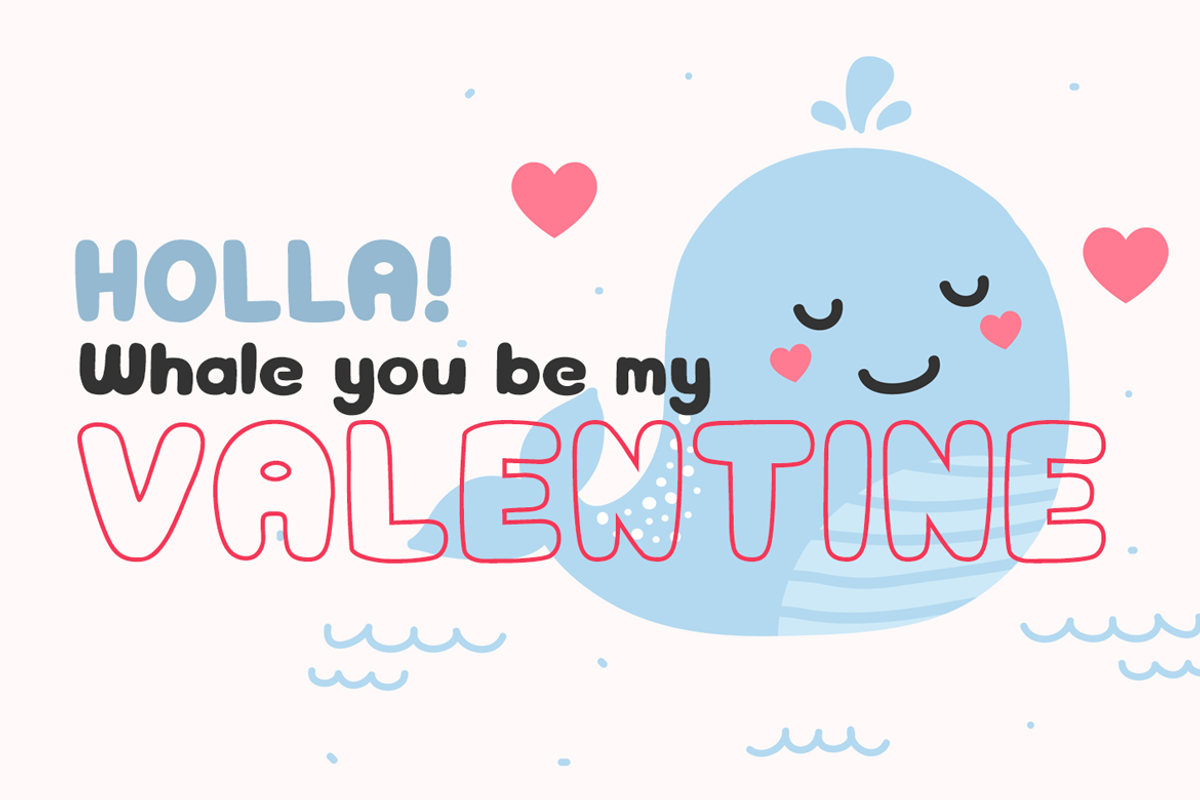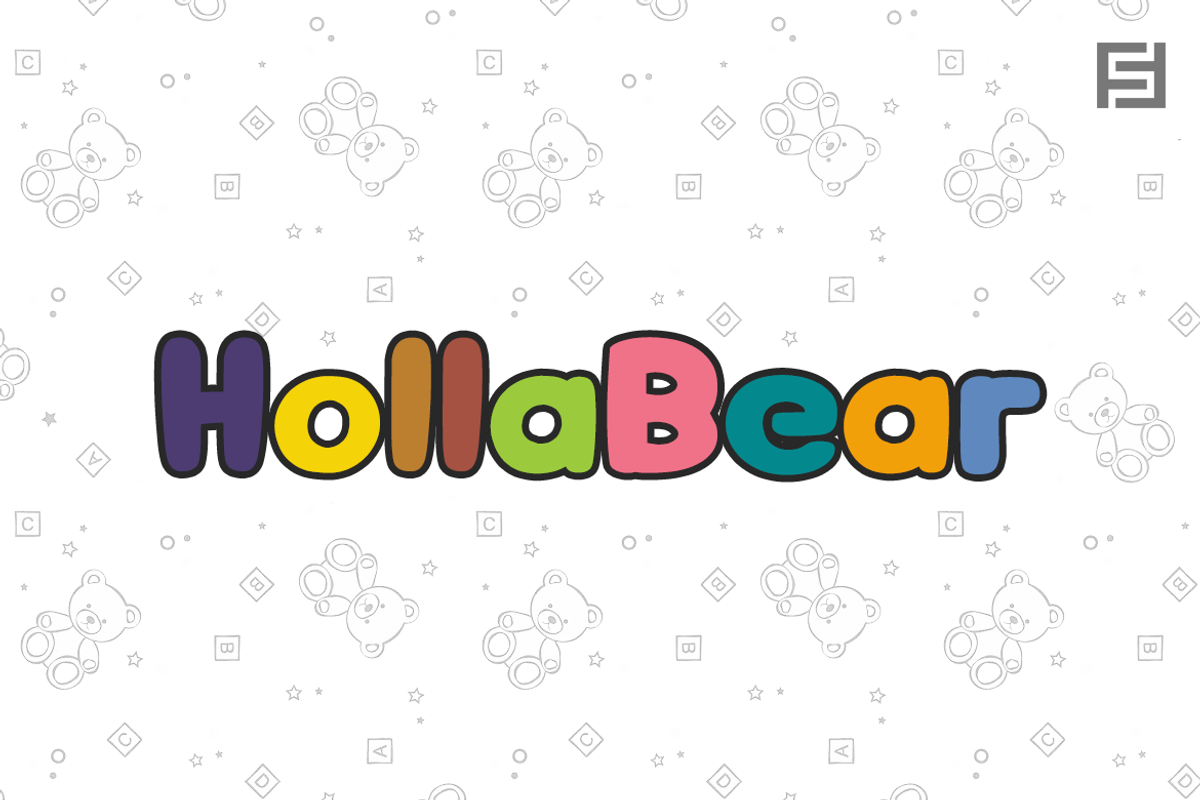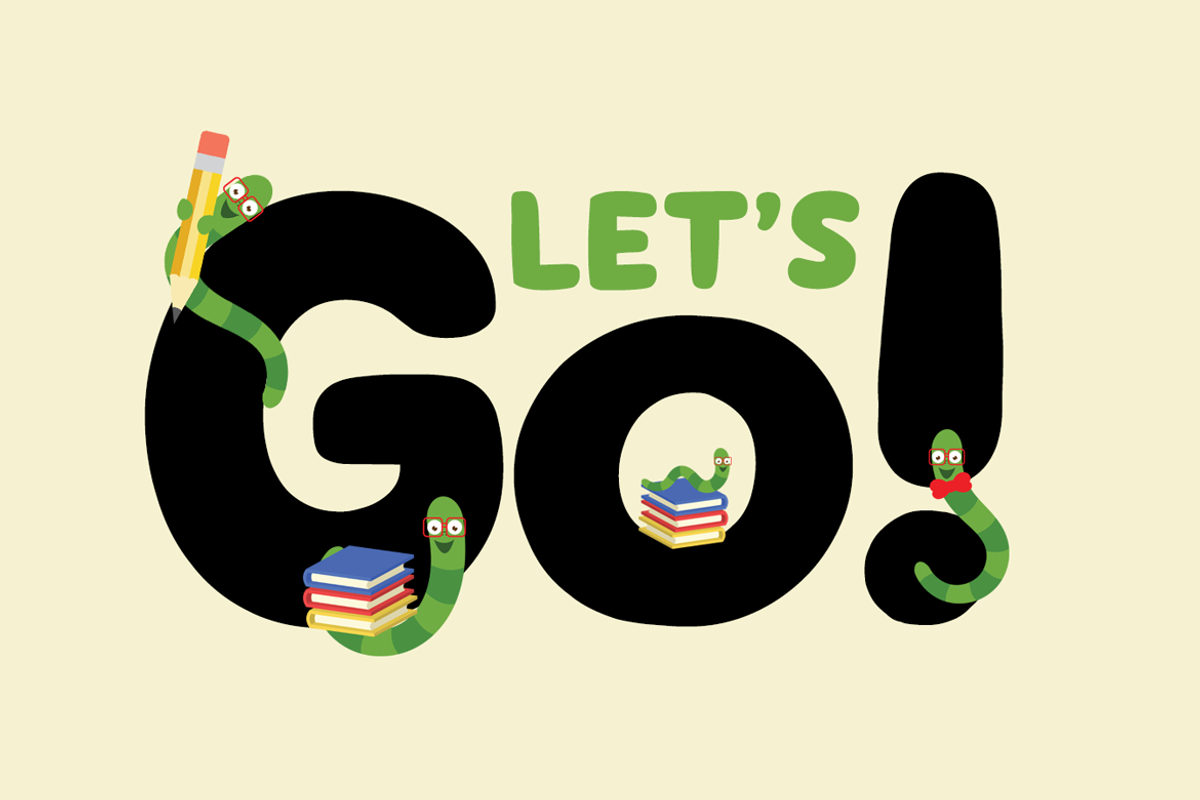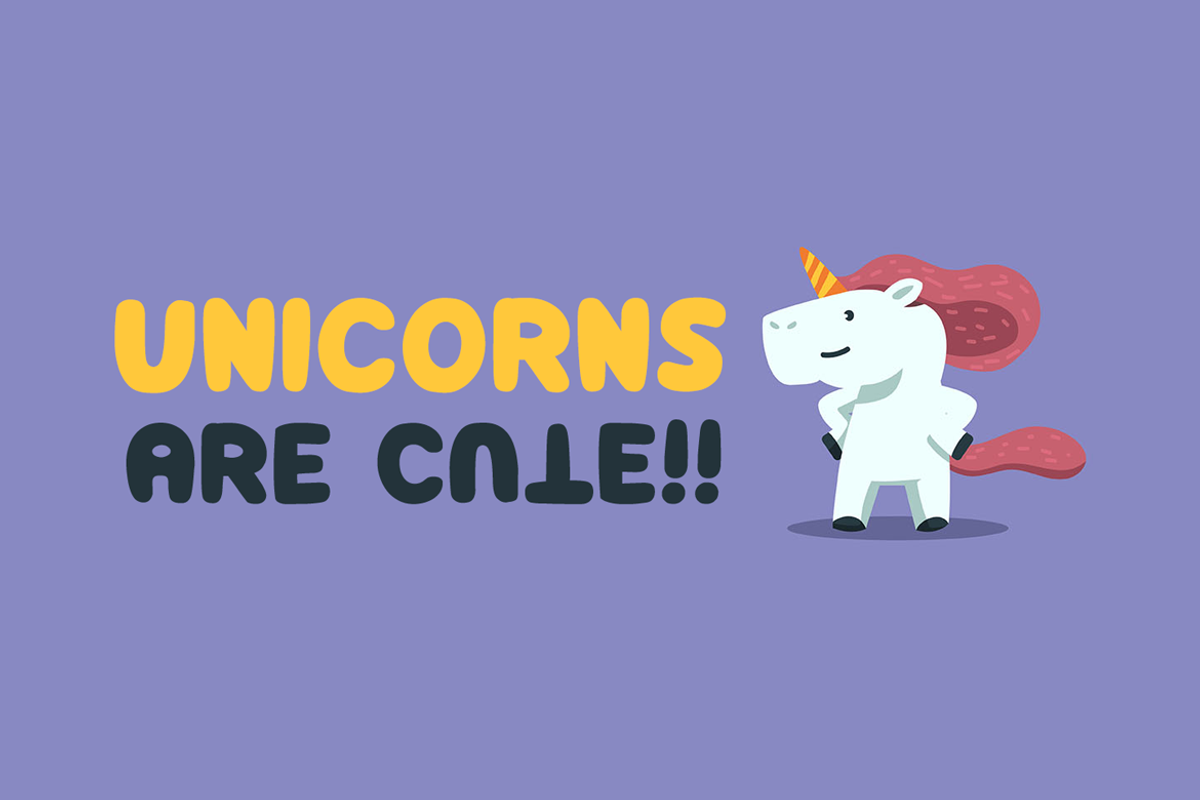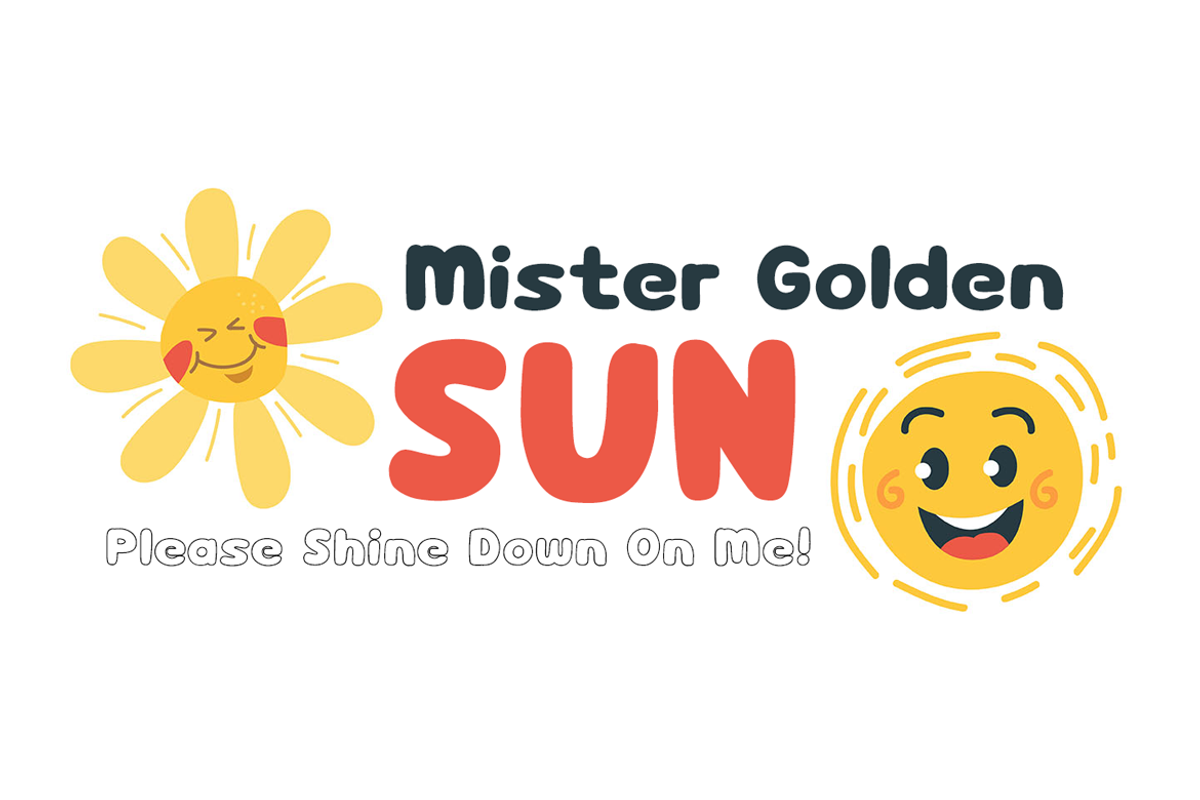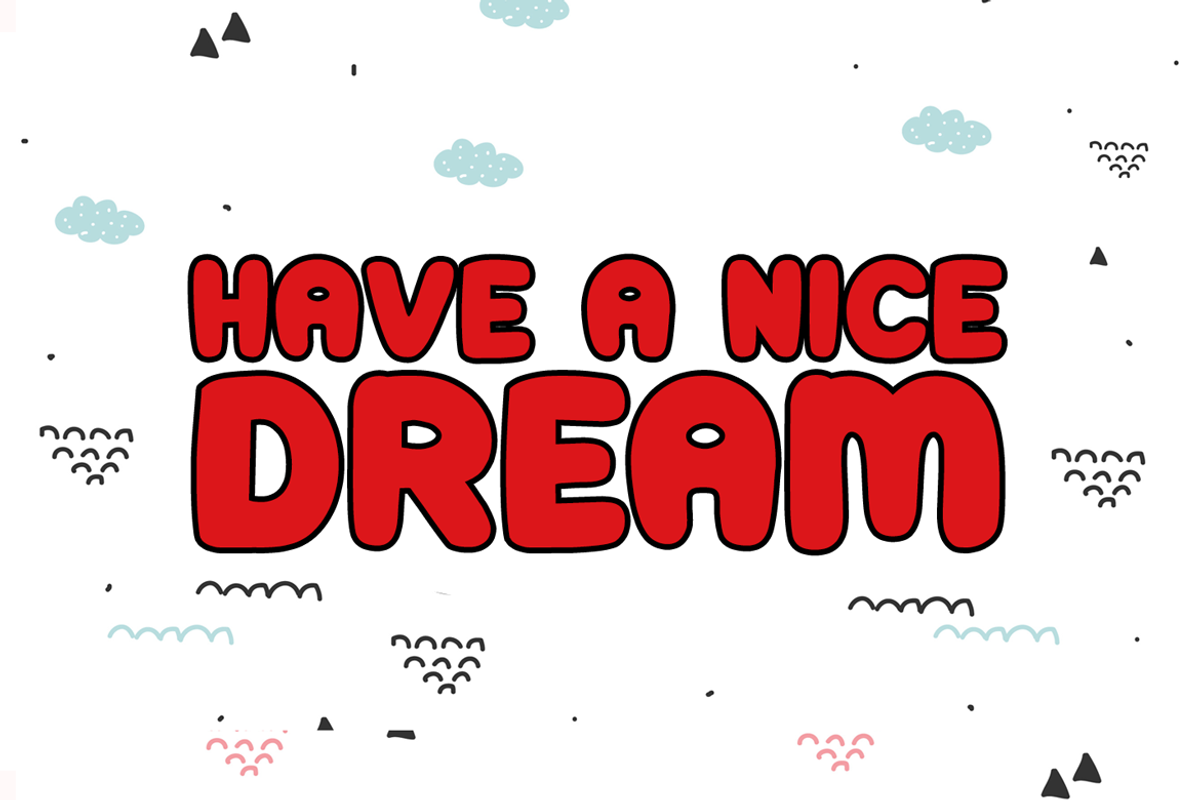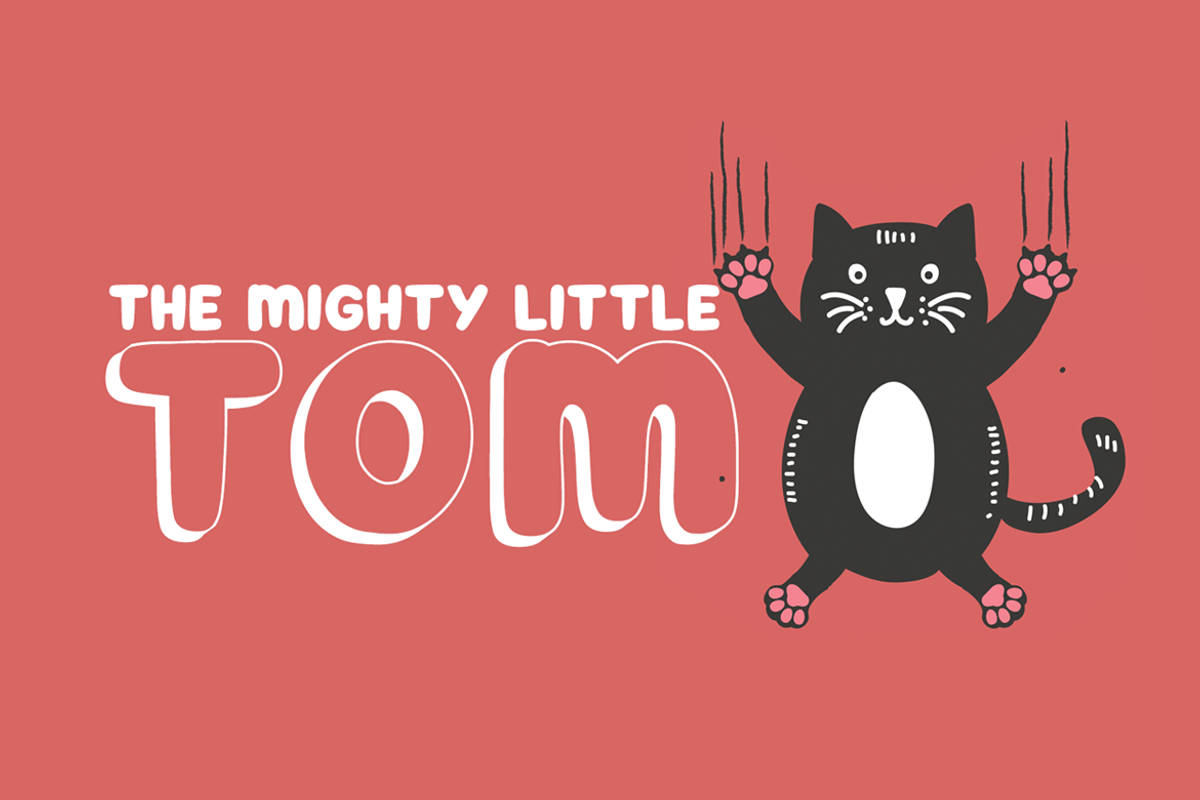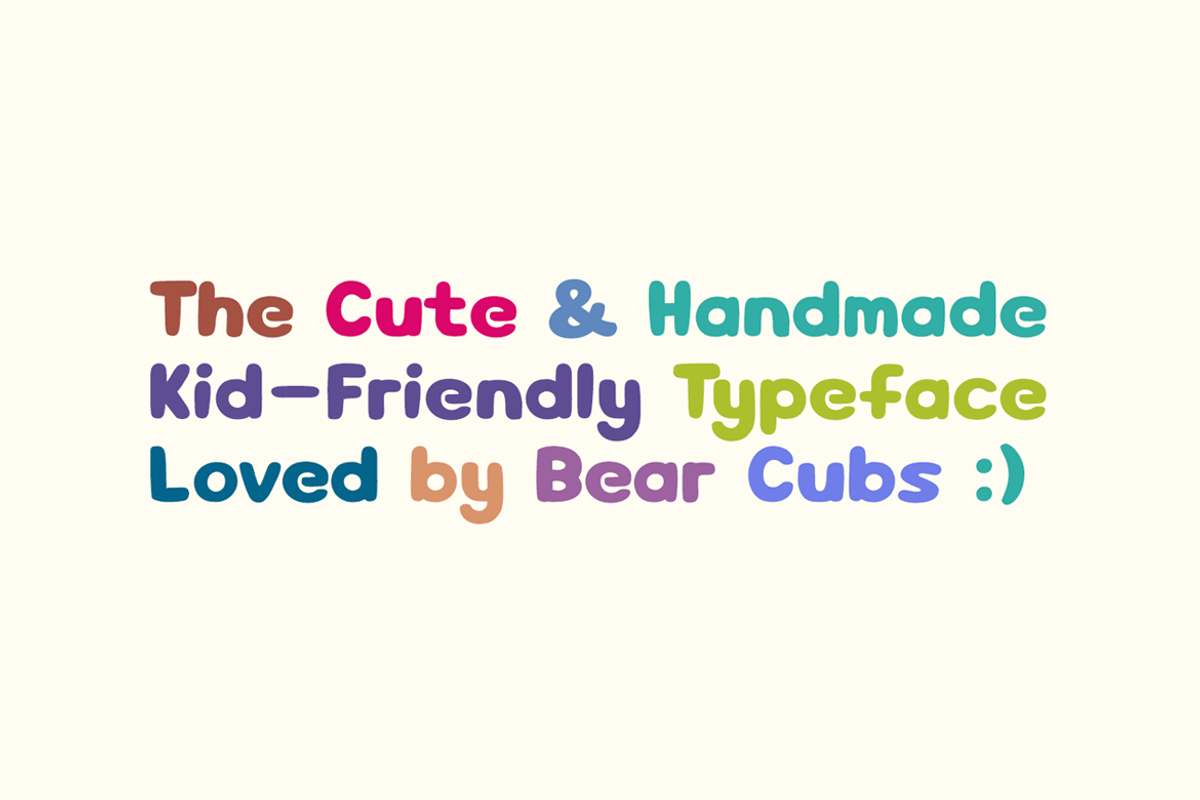
HollaBear - Cute & Playful Kids Font
A cute & funny kid-friendly typeface inspired from bears and handmade with passion and joy! Will you believe if we say, HollaBear is made by bear cubs :)
The typeface is essentially simple but very uniquely expressive when it comes to the design of posters, flyers, cartoons graphics, logotype, web and display usage. Please see the examples shown above to get an idea about the capability of this typeface.
The typeface comes with single weight but 6 variants (Regular, Italic, Outline, Outline Italic, 3D and 3D Italic). The pack contains OTF, TTF as Desktop fonts and optional Web Fonts (all EOT, SVG, TTF, WOFF, WOFF2 formats included) as licensing choice.
And yeah, it is made by bear cubs :)
- HollaBear comes with Extended Latin character sets including Western European, Central European and South Eastern European character sets.
- The typeface comes with single weight but 6 variants (Regular, Italic, Outline, Outline Italic, 3D and 3D Italic).
- HollaBear comes with Extended Latin character sets including Western European, Central European and South Eastern European character sets.
- The typeface comes with single weight but 6 variants (Regular, Italic, Outline, Outline Italic, 3D and 3D Italic).